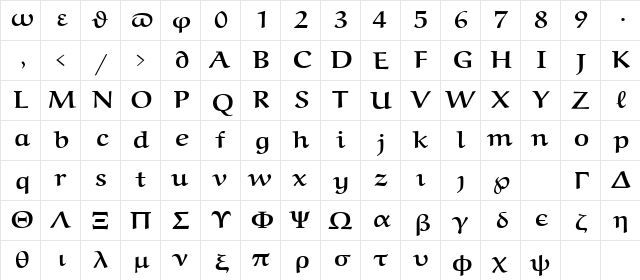
eurb7 Regular
Design Context for eurb7 Typeface
eurb7 offers clean, dependable letterforms without strong stylistic allegiance, making it a practical choice for designers who need flexibility.